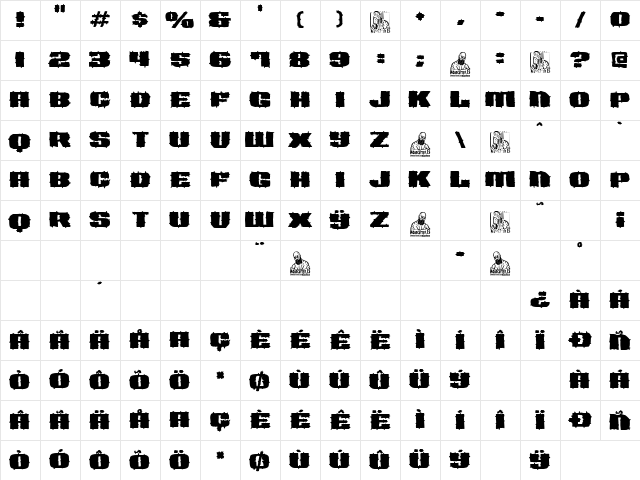
First Victory Regular Free Font
First Victory Regular
Designer: Woodcutter Manero
Design Context for First Victory
First Victory is a composed and adaptable typeface that performs quietly and consistently across a wide range of design contexts.